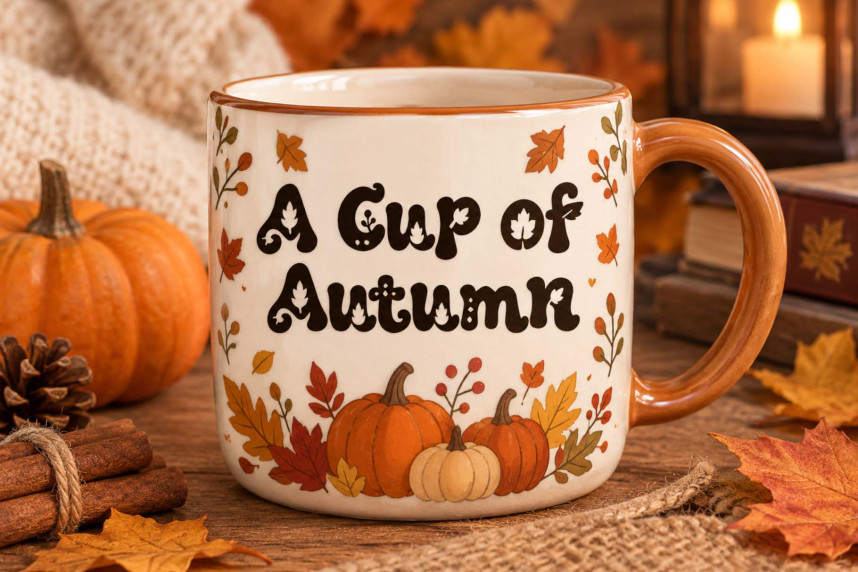
Autumn Reverie Font
Autumn Reverie Font is a charming and cheerful display font inspired by the warm, cozy beauty of autumn. Its bold, rounded letterforms are enhanced by delicate leaf details, creating a unique, warm, and handcrafted feel. It includes uppercase and lowercase letters, numerals, punctuation, and multilingual support. It is perfect for seasonal branding, greeting cards, posters, t-shirts, mugs, stickers, packaging, and various autumn-themed crafts.